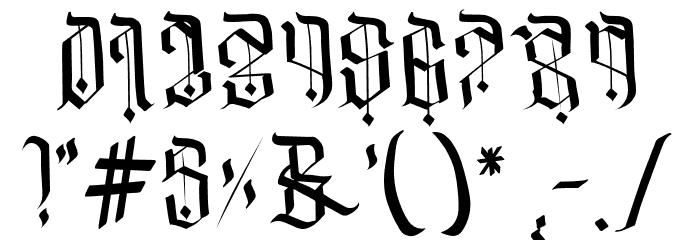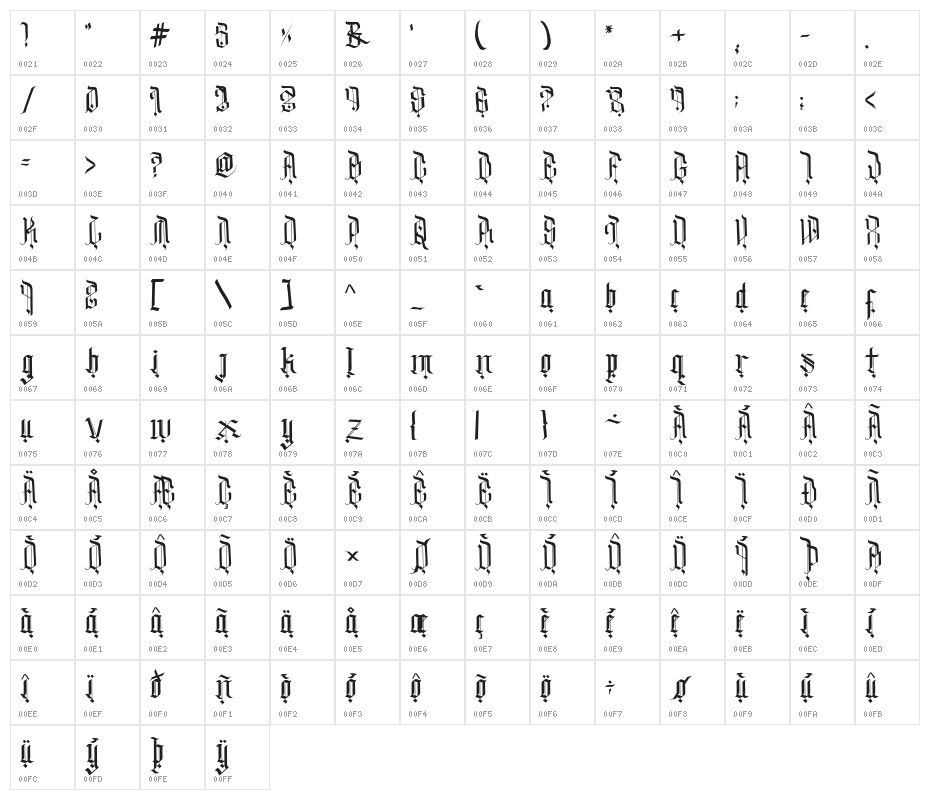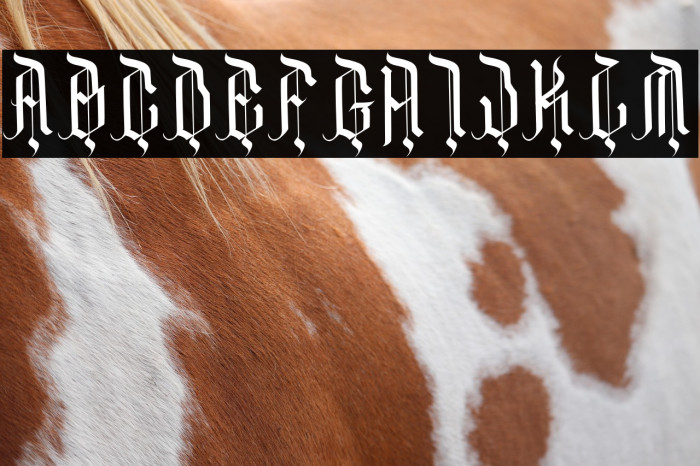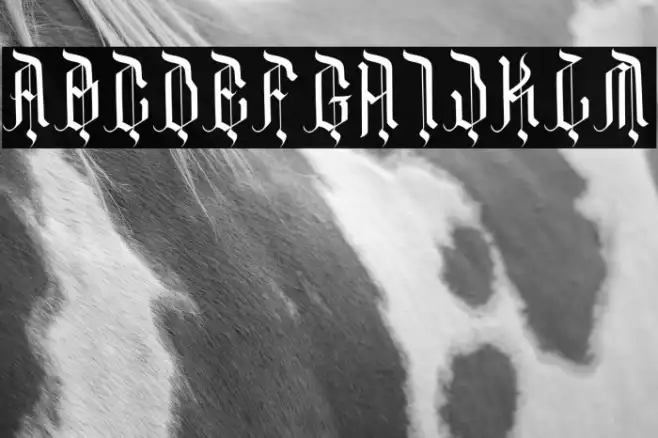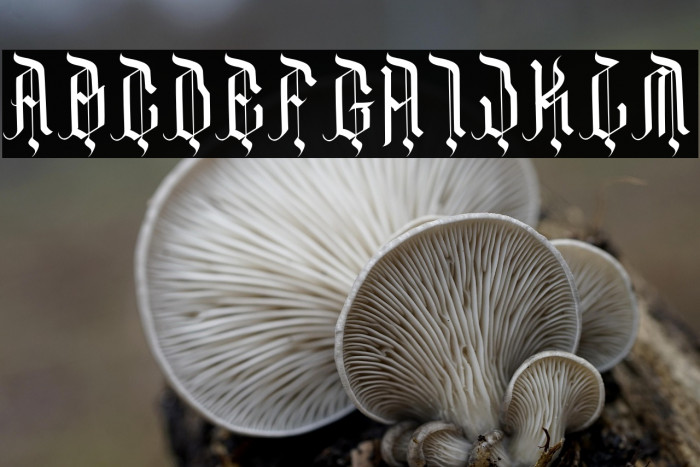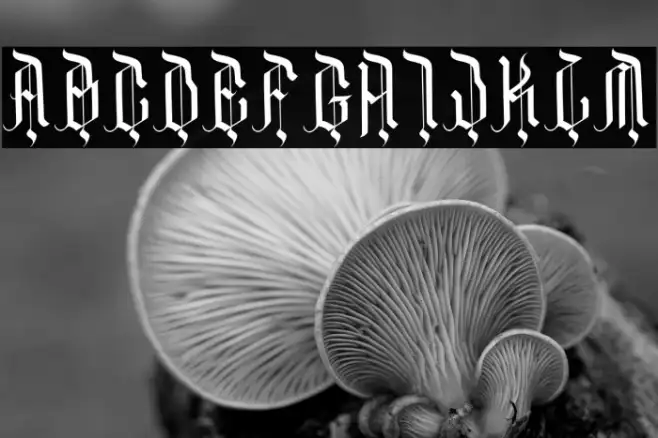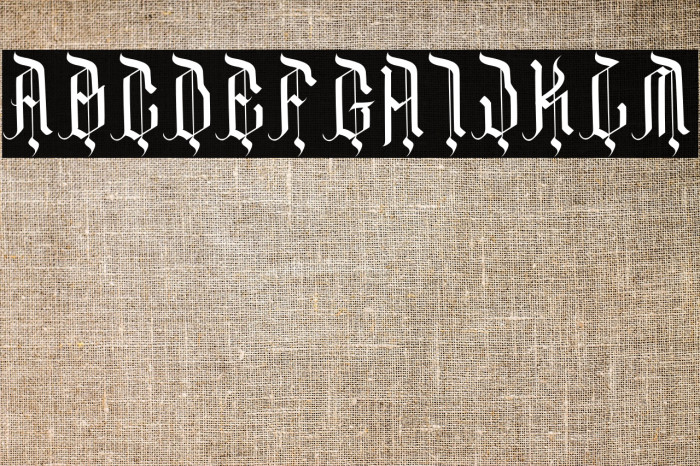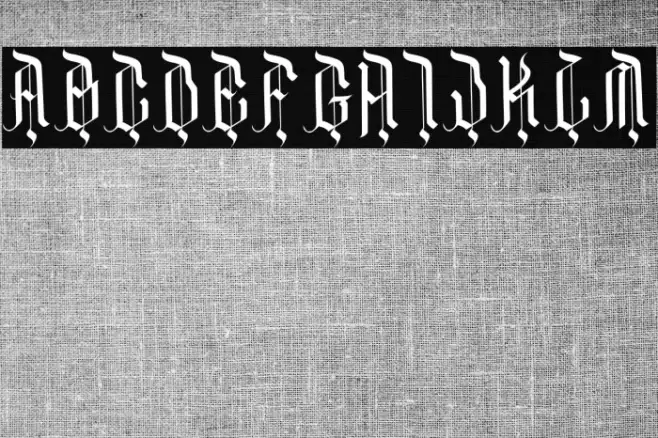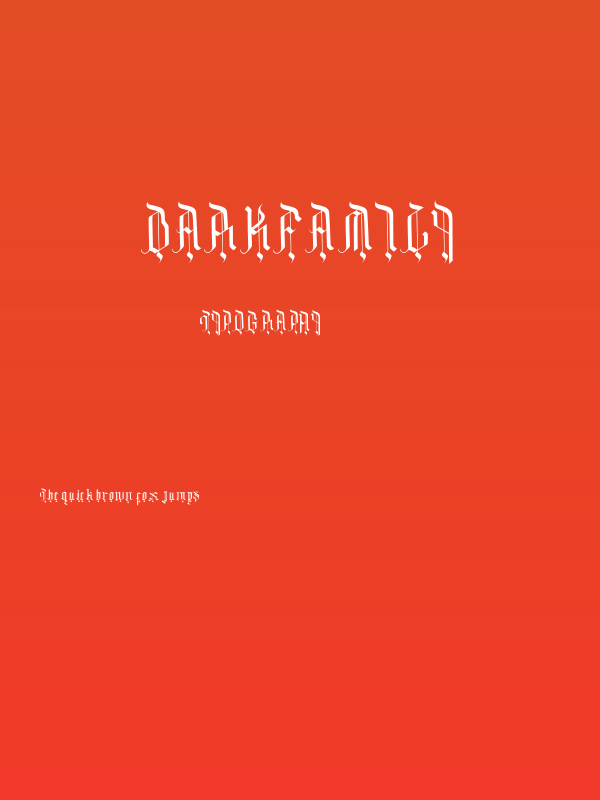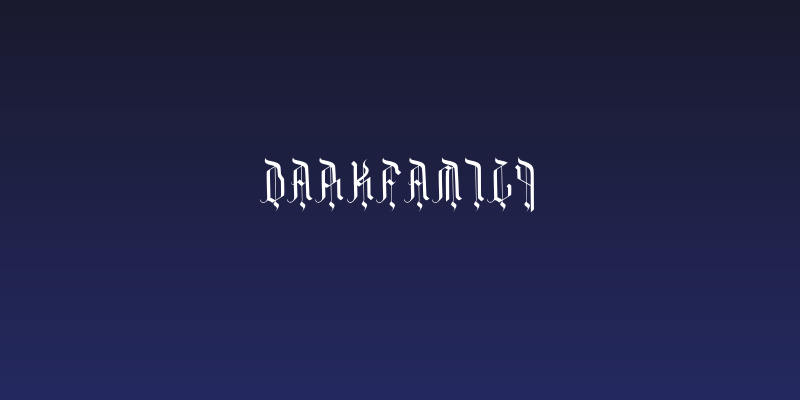
DarkFamily Font
DarkFamily Description
This font exhibits a classic blackletter style, characterized by its intricate and angular letterforms. The strokes are bold and pronounced, with sharp edges and pointed serifs that give it a dramatic and historical appearance. The uppercase and lowercase letters maintain a consistent style, with elaborate flourishes and a gothic aesthetic. The numerals and special characters are equally ornate, fitting seamlessly into the overall design. This font evokes a sense of tradition and formality, reminiscent of medieval manuscripts and old-world typography.
| Overall Style | Vintage |
| Use Case | Logos, Headlines, Decorative text |
| Proposed Projects | Ideal for projects requiring a historical or gothic touch, such as book covers, posters, or themed event invitations. |